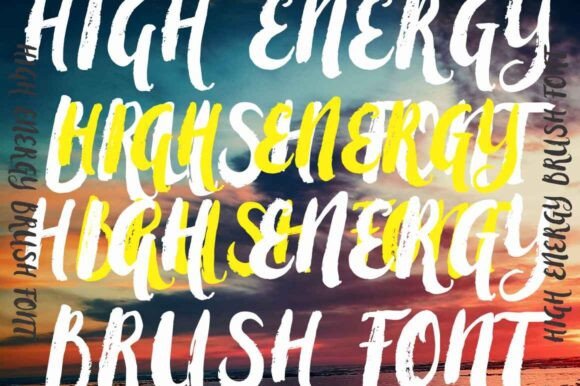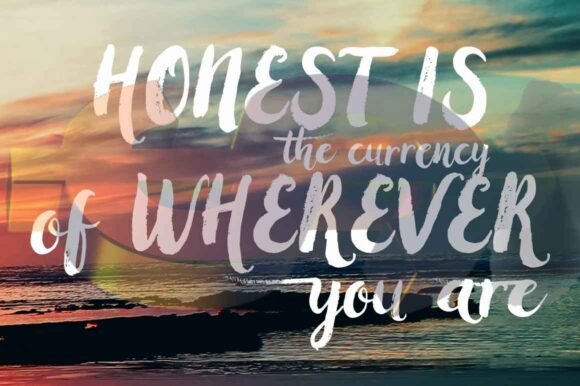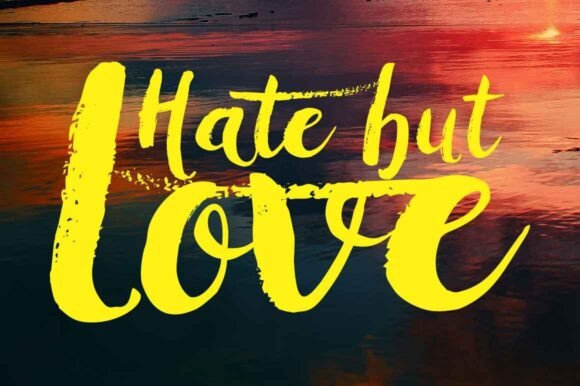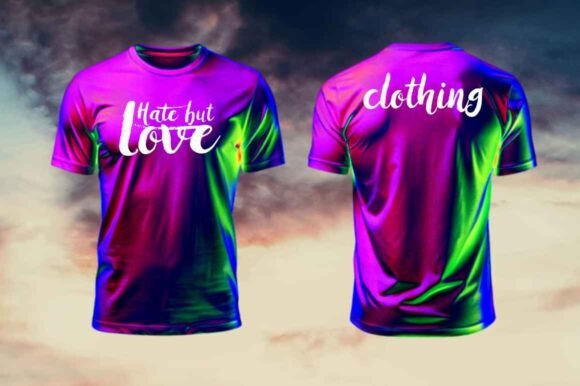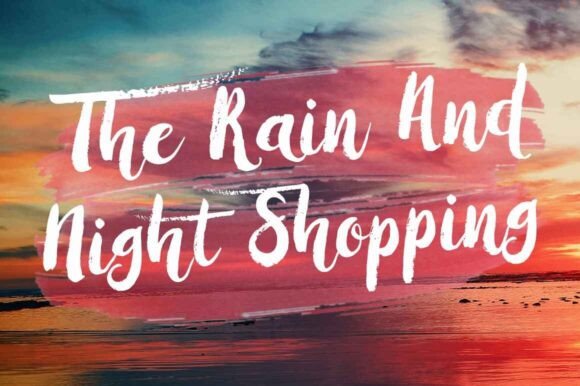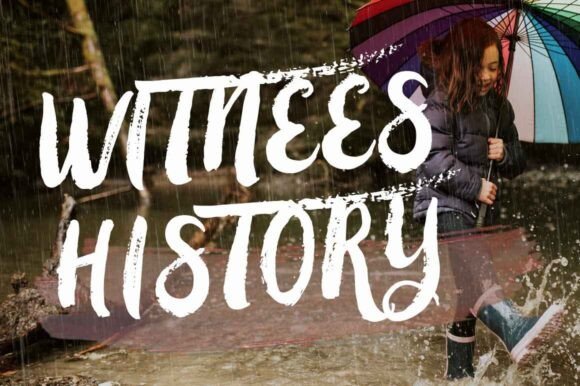
Introducing Brush Beaute Font: The Perfect Hand Brush Script for Designers and Crafters
Are you tired of using the same old fonts in your design projects? Look no further than Brush Beaute Font, a casual hand brush script that adds a touch of personality and whimsy to any design. With its unique texture and flow, Brush Beaute is perfect for designers and crafters looking to create beautiful and eye-catching designs.
The Characteristics of Brush Beaute Font
Brush Beaute Font is a hand brush script that mimics the natural flow and texture of handwriting. It has a casual, laid-back feel that’s perfect for designs that need a personal touch. One of the standout features of Brush Beaute is its extensive range of alternates, which allow you to create a truly unique and authentic look. With Brush Beaute, you can create designs that look like they were written by hand, without the hassle of actually handwriting them.
Uses for Brush Beaute Font
Brush Beaute Font is incredibly versatile and can be used in a wide range of design projects. Here are just a few ideas to get you started:
- Logo and Branding: Use Brush Beaute to create a unique and memorable logo that stands out from the crowd.
- Posters and Flyers: Add a touch of personality to your posters and flyers with Brush Beaute’s playful script.
- Wedding Invitations: Create beautiful and elegant wedding invitations that set the tone for a special day.
- Social Media Posts: Use Brush Beaute to create eye-catching social media posts that grab attention and drive engagement.
- Greeting Cards: Add a personal touch to your greeting cards with Brush Beaute’s charming script.
- Stationary Art: Use Brush Beaute to create beautiful and unique stationary art that showcases your creativity.
Why Designers and Crafters Love Brush Beaute Font
So why do designers and crafters love Brush Beaute Font? Here are just a few reasons:
- Unique Texture and Flow: Brush Beaute’s hand brush script gives it a unique texture and flow that’s hard to replicate with other fonts.
- Extensive Alternates: With a wide range of alternates, you can create a truly unique and authentic look that’s tailored to your design.
- Versatile: Brush Beaute can be used in a wide range of design projects, from logos and branding to social media posts and greeting cards.
- Experiment with Different Sizes: Brush Beaute looks great in a variety of sizes, so don’t be afraid to experiment and find the perfect size for your design.
- Play with Alternates: With so many alternates to choose from, take some time to play around and find the perfect combination for your design.
- Pair with Other Fonts: Brush Beaute pairs well with a variety of other fonts, so don’t be afraid to experiment and find the perfect combination.
| Font Name | Brush Beaute Font |
| Author | gianstudio12 |
Brush Beaute Font is a versatile and charming hand brush script that’s perfect for designers and crafters looking to add a personal touch to their designs. With its unique texture and flow, extensive range of alternates, and ease of use, Brush Beaute is a must-have font for any designer or crafter looking to take their designs to the next level.